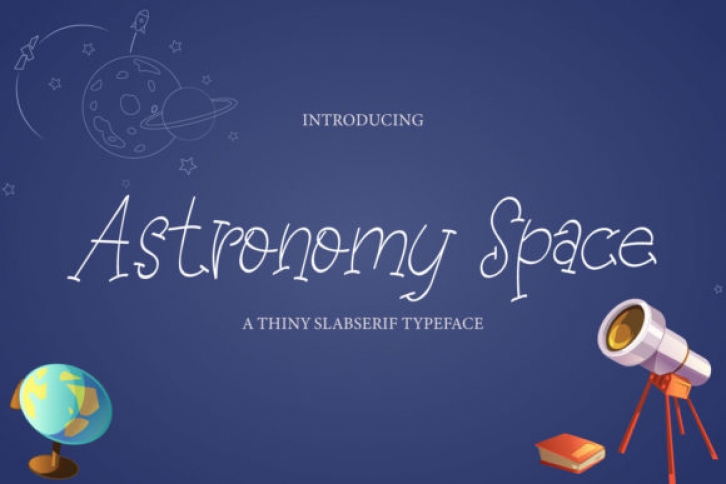
Astronomy Space is a beautifully hand-drawn slab serif font with a modern vibe. It will give any design project a distinct editorial look and feel. This fantastic slab serif font is best suited for web, print, moving images, and t-shirt designs.